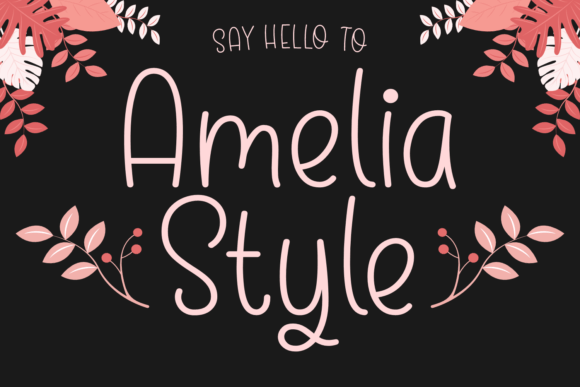
About Amelia Style Font
“Amelia Style” is more than just a font; it’s a cute and modern handwritten typeface designed to bring a delightful touch to your projects. Carefully crafted, this font stands out with the lightness of its characters, making it suitable for a wide range of design endeavors. Let your creativity soar as you use it for kids’ crafts, posters, web graphics, sublimation projects, cards, and more!
The charm of “Amelia Style” lies in its cute and modern handwritten style. Its light and playful characters make it an ideal choice for projects where you want to infuse a sense of joy and creativity. Whether used for kids’ crafts that demand a cute touch or on posters that pop with a modern aesthetic, this font delivers.
Imagine “Amelia Style” adding a delightful touch to kids’ crafts, where its cute and modern style enhances the overall playfulness of the project. Picture it on posters, creating designs that stand out with a contemporary and youthful flair. Envision this font used in various creative applications, allowing you to explore a myriad of possibilities.
One of the standout features of “Amelia Style” is its versatility. Its cute and modern style make it adaptable to a variety of design contexts, making it a great choice for expressing your creativity.
Whether you’re working on kids’ crafts, posters, or any other creative project, “Amelia Style” offers a cute and modern handwritten typeface that adds a delightful touch to your designs. It’s not just a font; it’s a creative tool that brings a sense of joy and playfulness to your projects. Let “Amelia Style” be the cute script that transforms your creations into visually dynamic and memorable works of art.